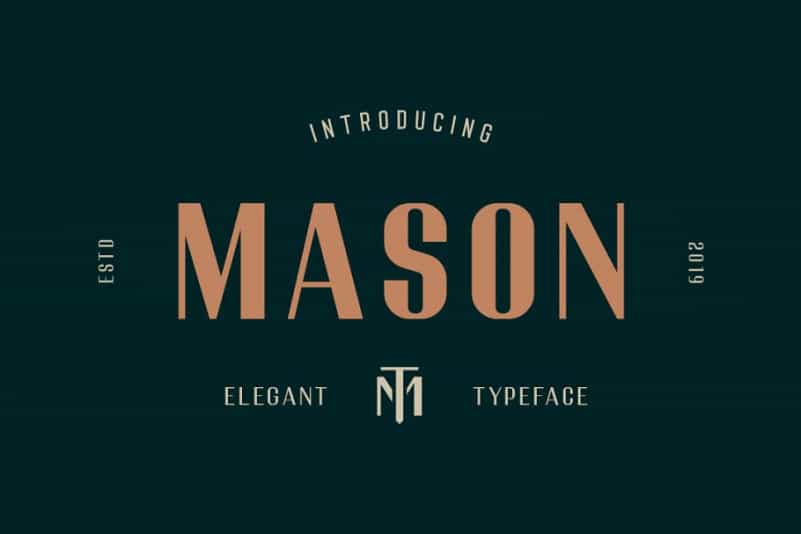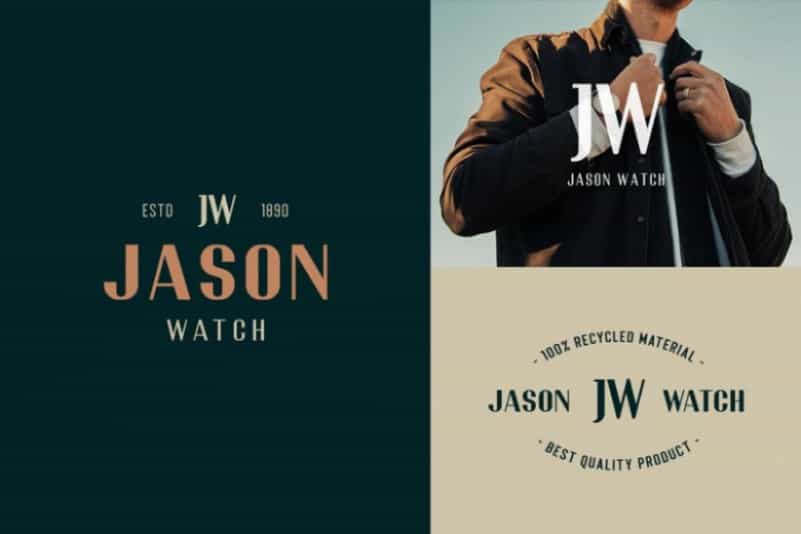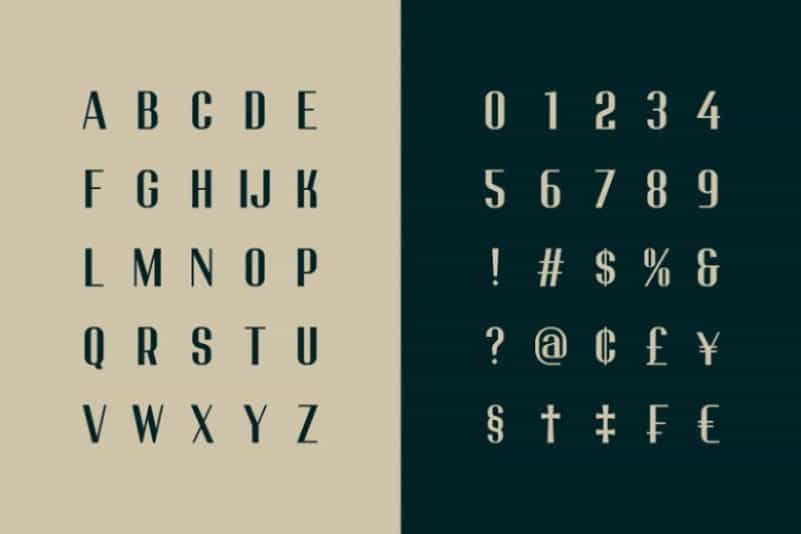
Introducing Mason Font. It is design and shared by Fadiel-muhammad. It is a clean cut sans-serif typeface designed primarily for display use. It has a macho, yet smooth appearance and is perfect for uses like fashion magazine title, logos, posters or as web page headline texts.